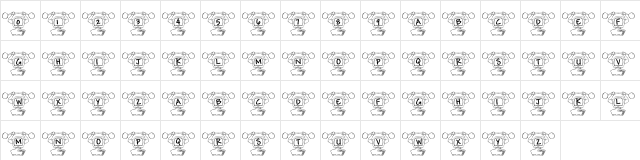
pf_mussle computer Regular
Design Context for pf_mussle computer
pf_mussle computer is a composed and adaptable typeface that performs quietly and consistently across a wide range of design contexts.